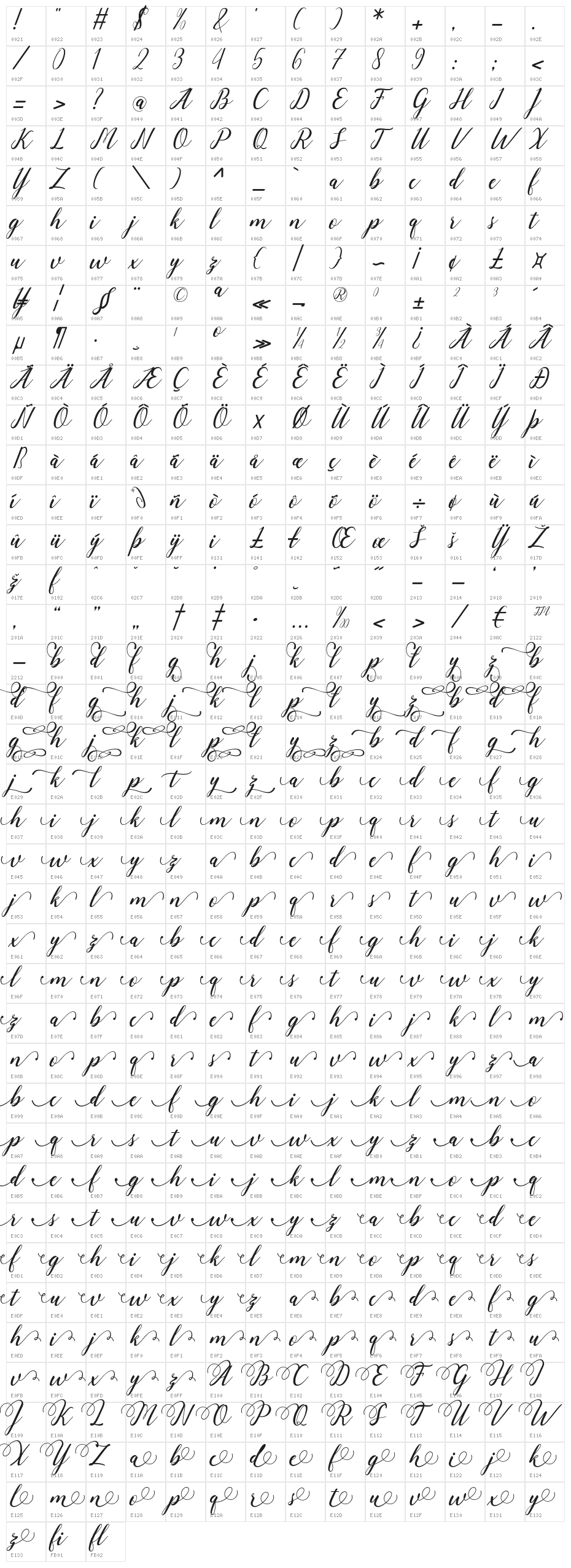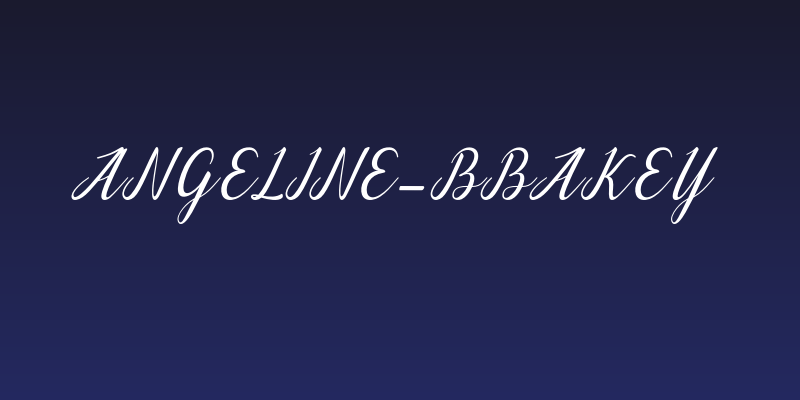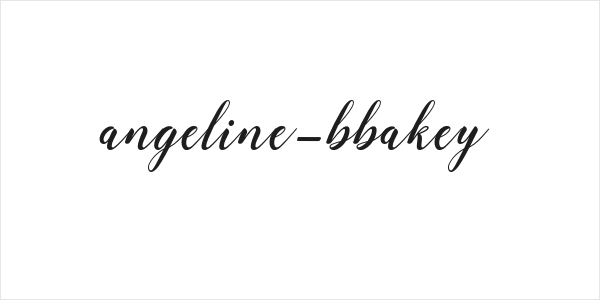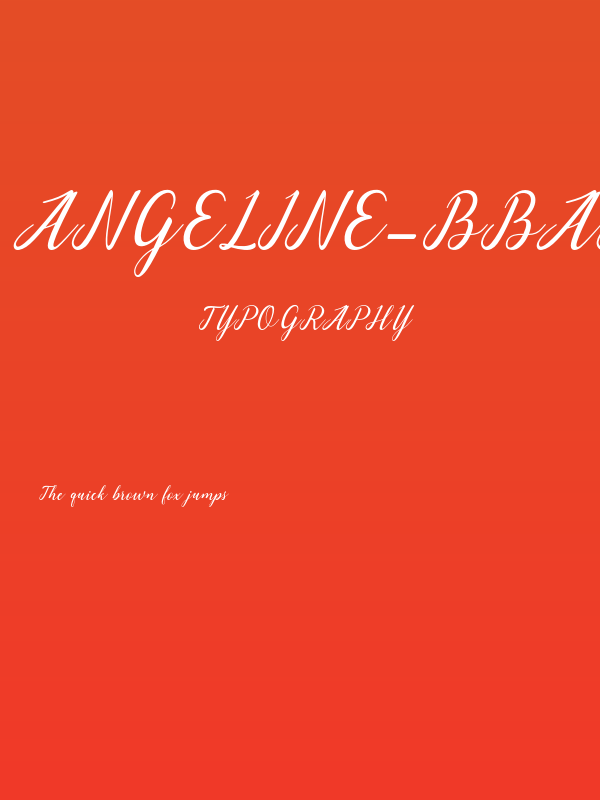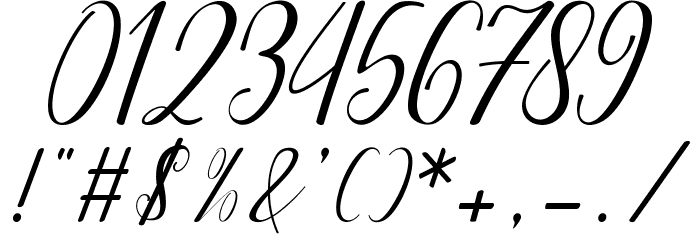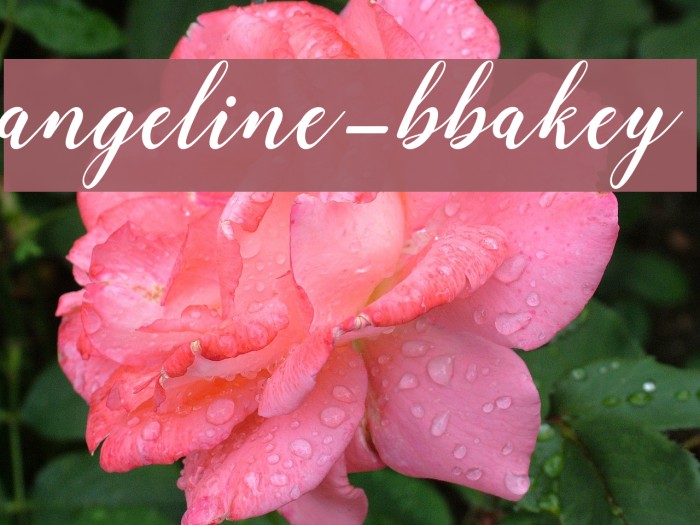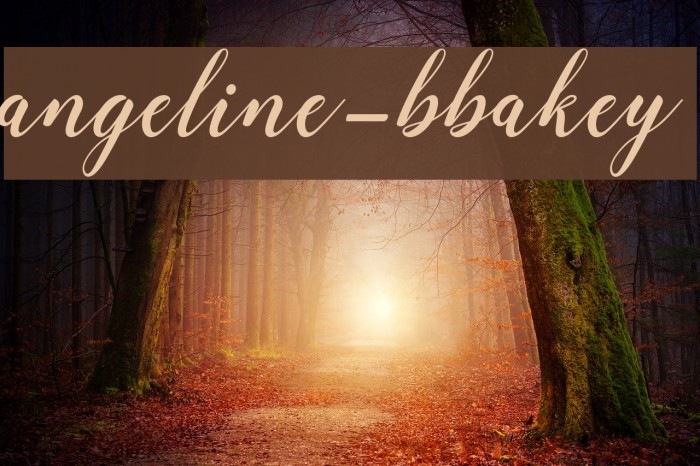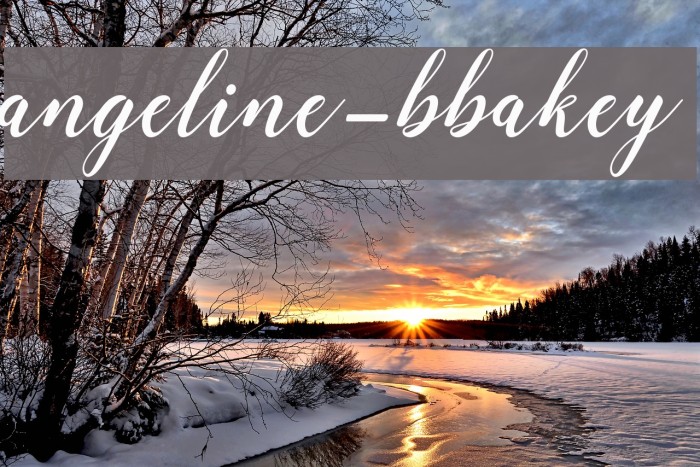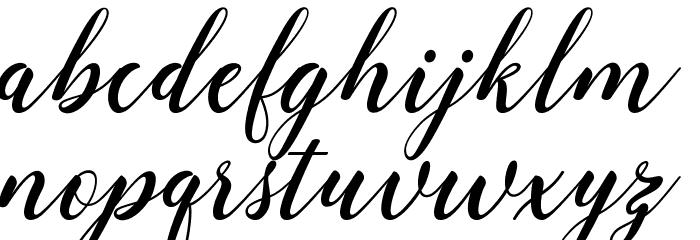
angeline-bbakey Font
angeline-bbakey Description
This elegant script font features a flowing, cursive style with smooth, connected strokes. The uppercase letters are tall and graceful, while the lowercase letters maintain a consistent slant, enhancing the overall fluidity. The numerals are stylishly curved, complementing the alphabet's aesthetic. Special characters are designed with the same attention to detail, making them seamlessly integrate with the text. This font exudes sophistication and charm, perfect for adding a personal touch to any project.
| Overall Style | Elegant |
| Use Case | Logos, Invitations, Greeting Cards |
| Proposed Projects | Ideal for wedding invitations, greeting cards, branding, and elegant logos. |